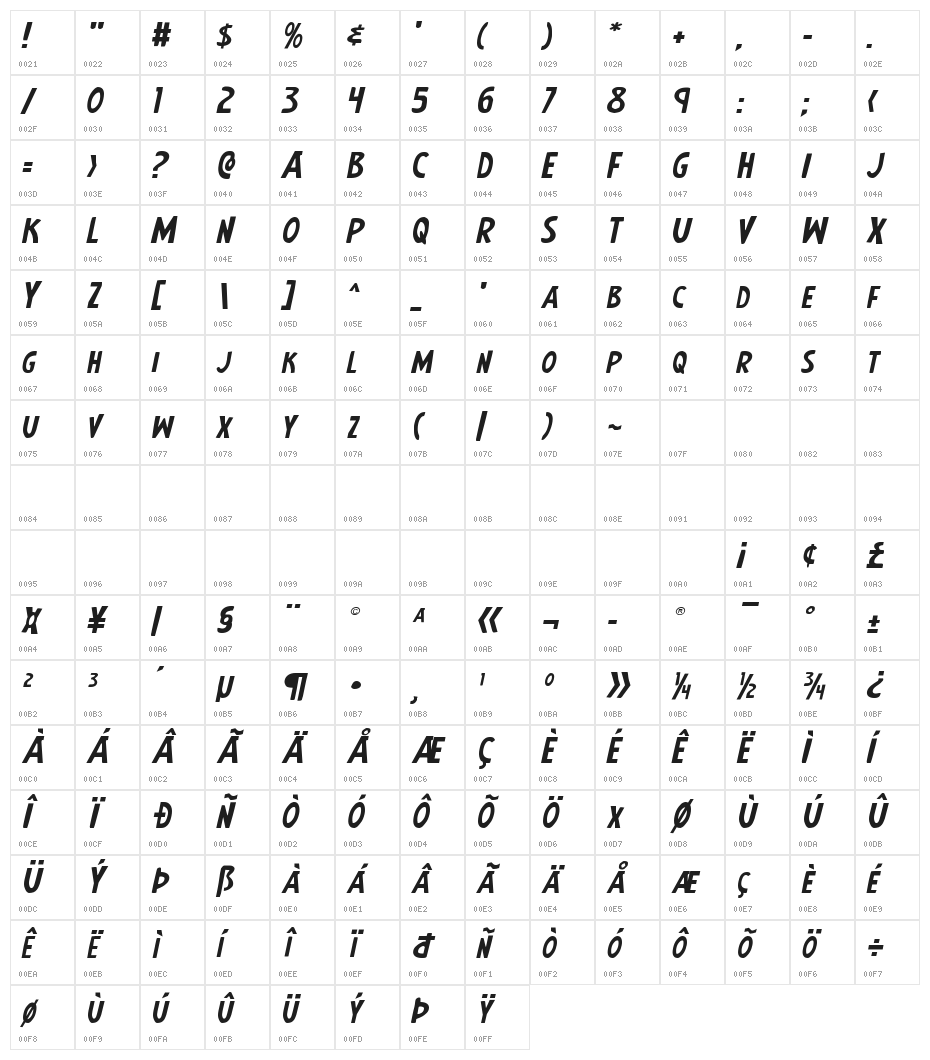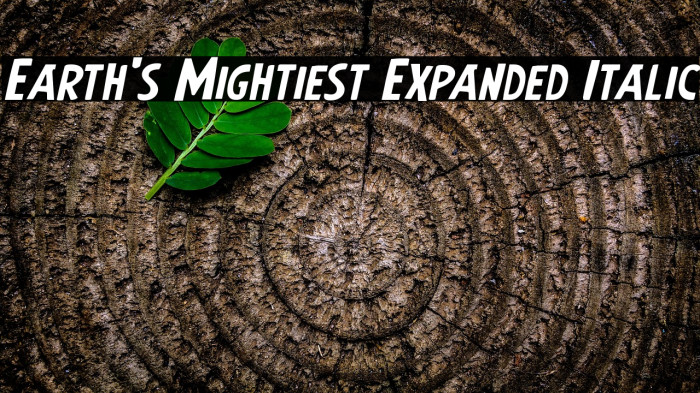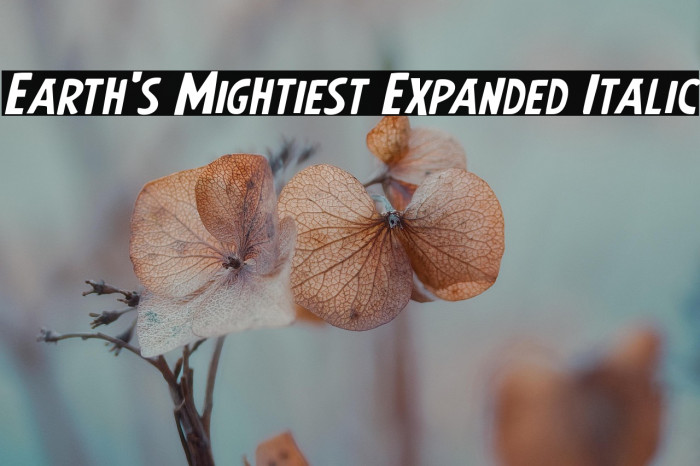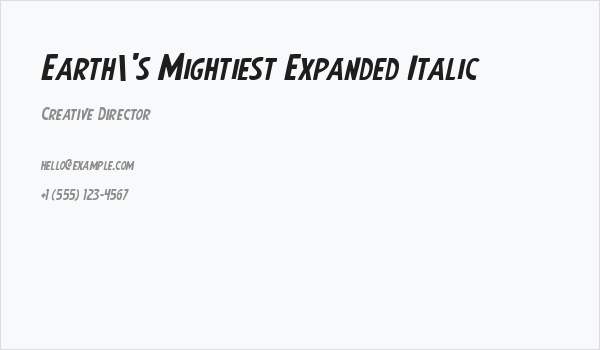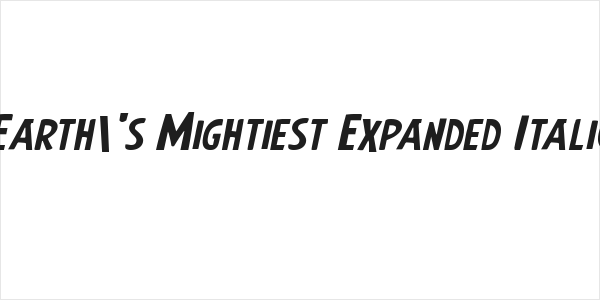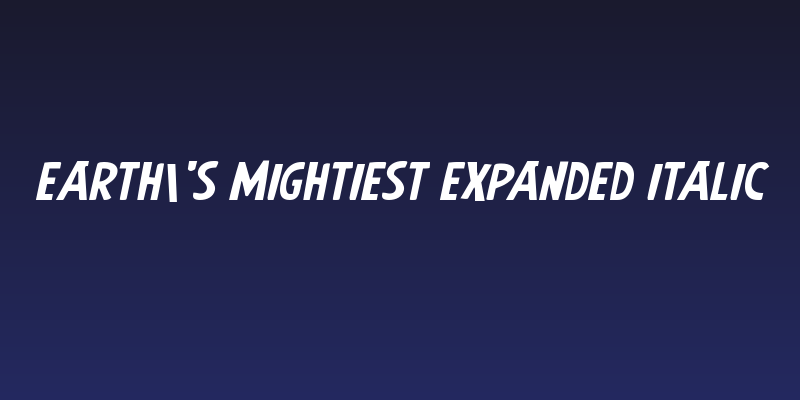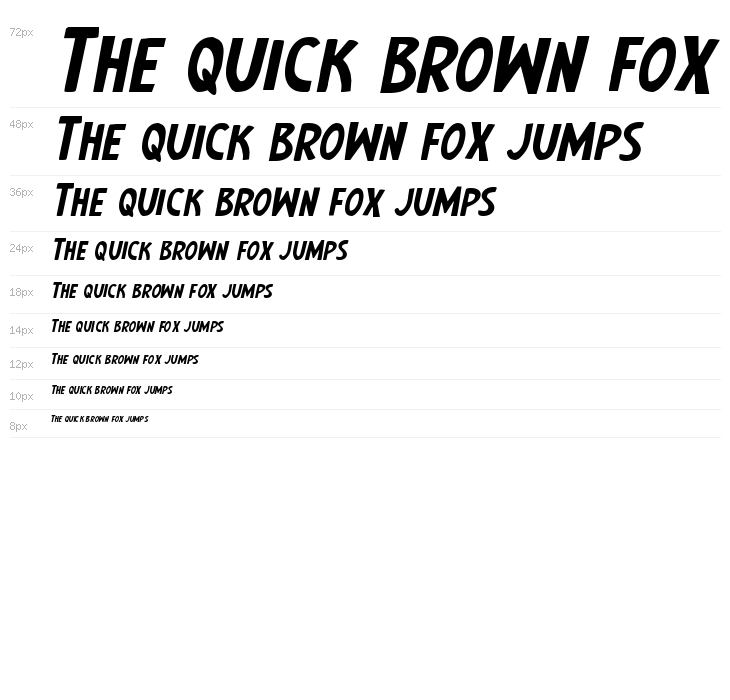
Earth's Mightiest Expanded Italic Font
Earth's Mightiest Expanded Italic Description
This font features a bold and dynamic style with an italic slant, giving it a sense of movement and energy. The characters are expanded, providing a wide stance that enhances readability while maintaining a strong visual impact. The strokes are consistent in weight, offering a uniform appearance across all characters. The design is modern and sleek, suitable for projects that require a bold statement. The special characters and numerals are designed to match the overall aesthetic, ensuring cohesion throughout any text.
| Proposed Projects | Ideal for headlines, posters, branding, and any design that needs a strong, impactful font. |